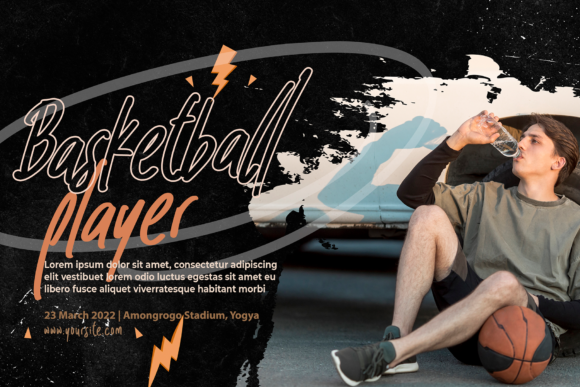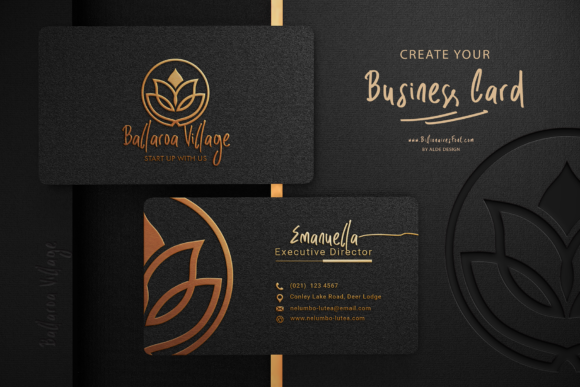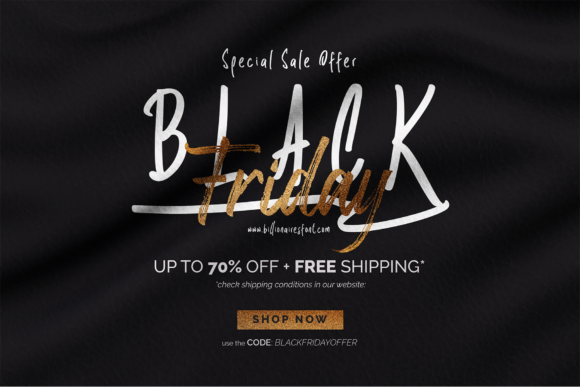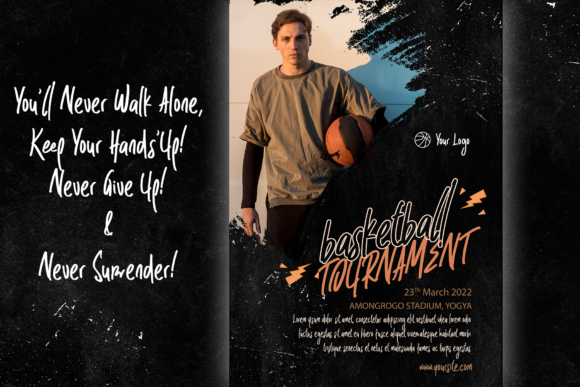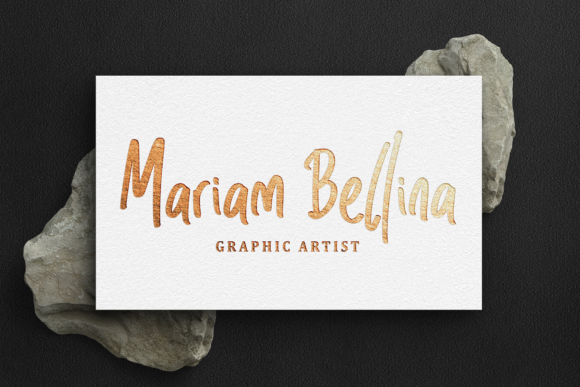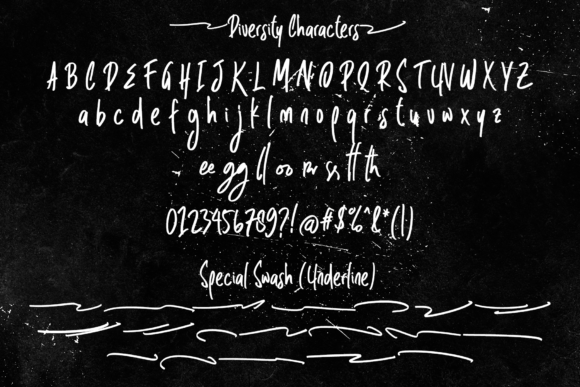
The Ultimate Guide to Diversity Font: Unlocking Creative Possibilities
I’ll never forget the time I was working on a project for a client who wanted a playful, yet elegant font to match their brand’s quirky personality. As I scrolled through my font library, I stumbled upon Diversity Font, and it was love at first sight! 💕 This modern handwritten font has been a game-changer for my designs, and I’m excited to share its features, benefits, and uses with you.
An Honest Review of Diversity Font
So, what makes Diversity Font so special? Let’s dive into the good stuff! 😊
- ✨ PUA encoded: Easy access to all glyphs and swashes, making it a breeze to create unique and creative designs.
- ✅ Perfect for various design projects: Posters, pamphlets, logos, quotes, playful lettering, clothing, and more!
- 💫 Modern and elegant: A beautiful, handwritten font that adds a touch of sophistication to any design.
Of course, no font is perfect, and Diversity Font has a few minor quirks:
- 🤔 Some characters may require manual kerning: While the font is generally well-spaced, some character combinations might need a little extra attention.
- ⚠️ Not suitable for body text: Due to its decorative nature, Diversity Font is best used for headlines, titles, or short paragraphs.
The Story Behind Diversity Font
Rumor has it that Diversity Font was created by a talented type designer who wanted to craft a font that would celebrate individuality and self-expression. Inspired by the beauty of handwritten letters, the designer poured their heart and soul into creating a font that’s both elegant and playful.
| What is PUA encoding? | PUA (Private Use Area) encoding allows font creators to include additional characters, glyphs, and swashes that aren’t part of the standard Unicode character set. |
| Is Diversity Font suitable for body text? | No, due to its decorative nature, Diversity Font is best used for headlines, titles, or short paragraphs. |